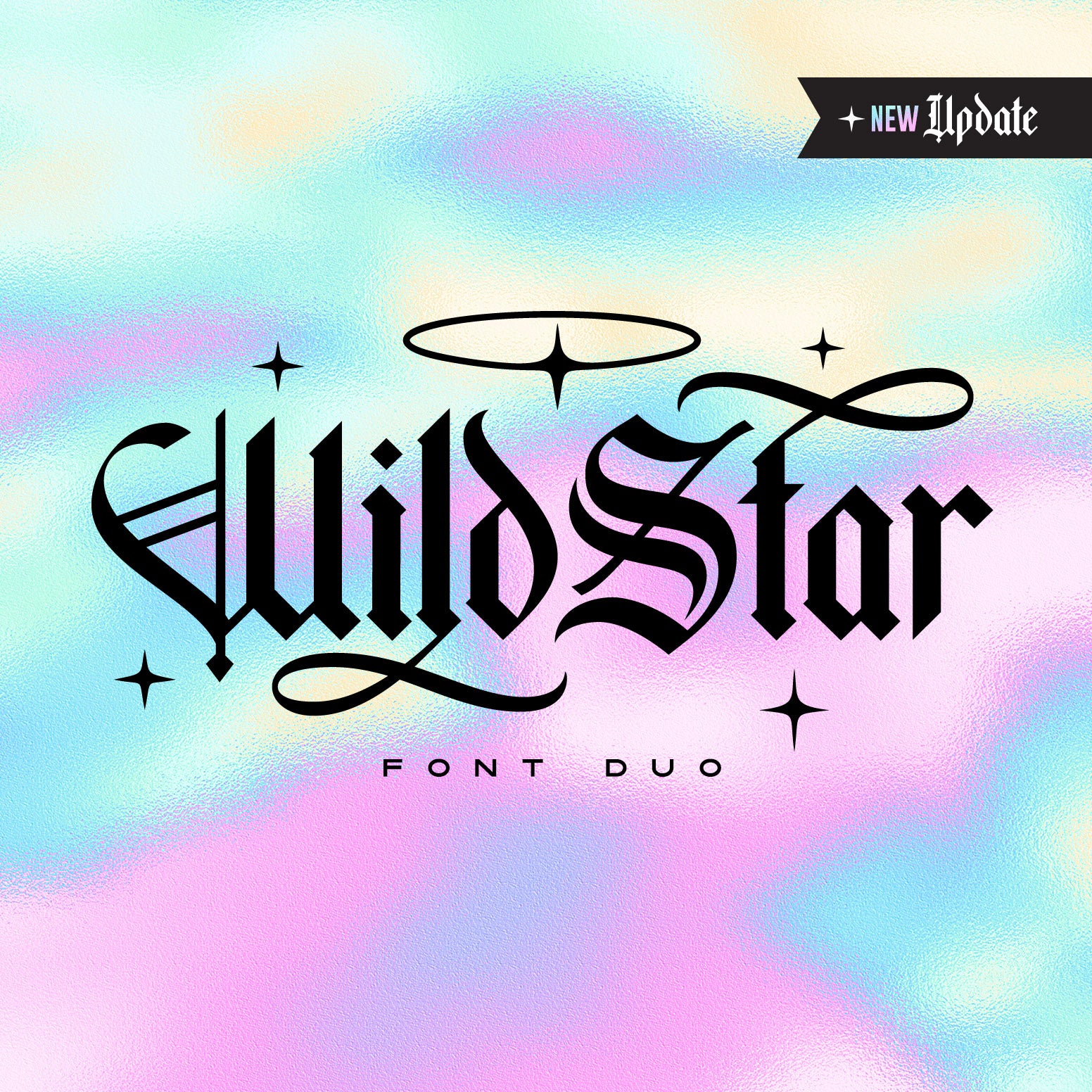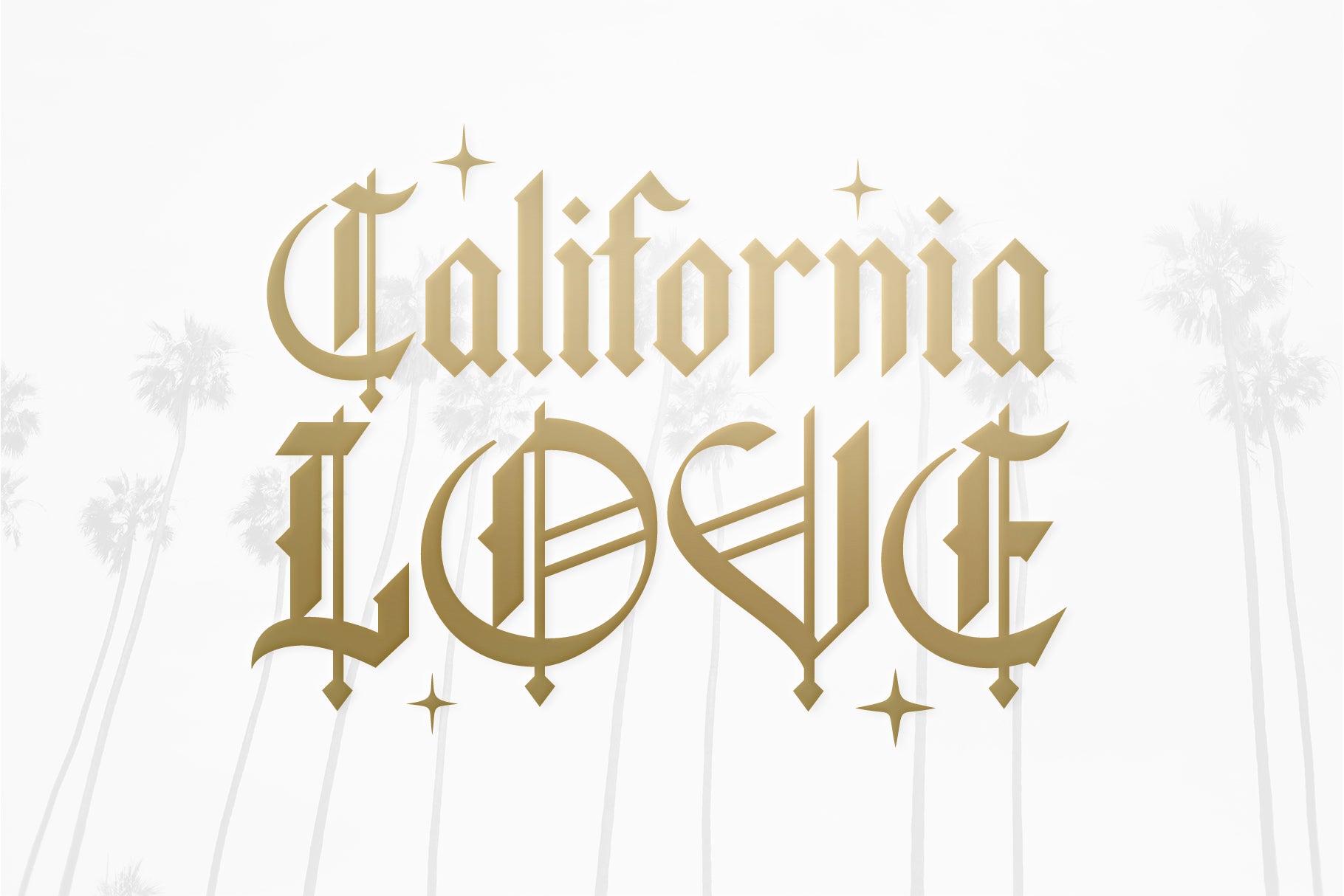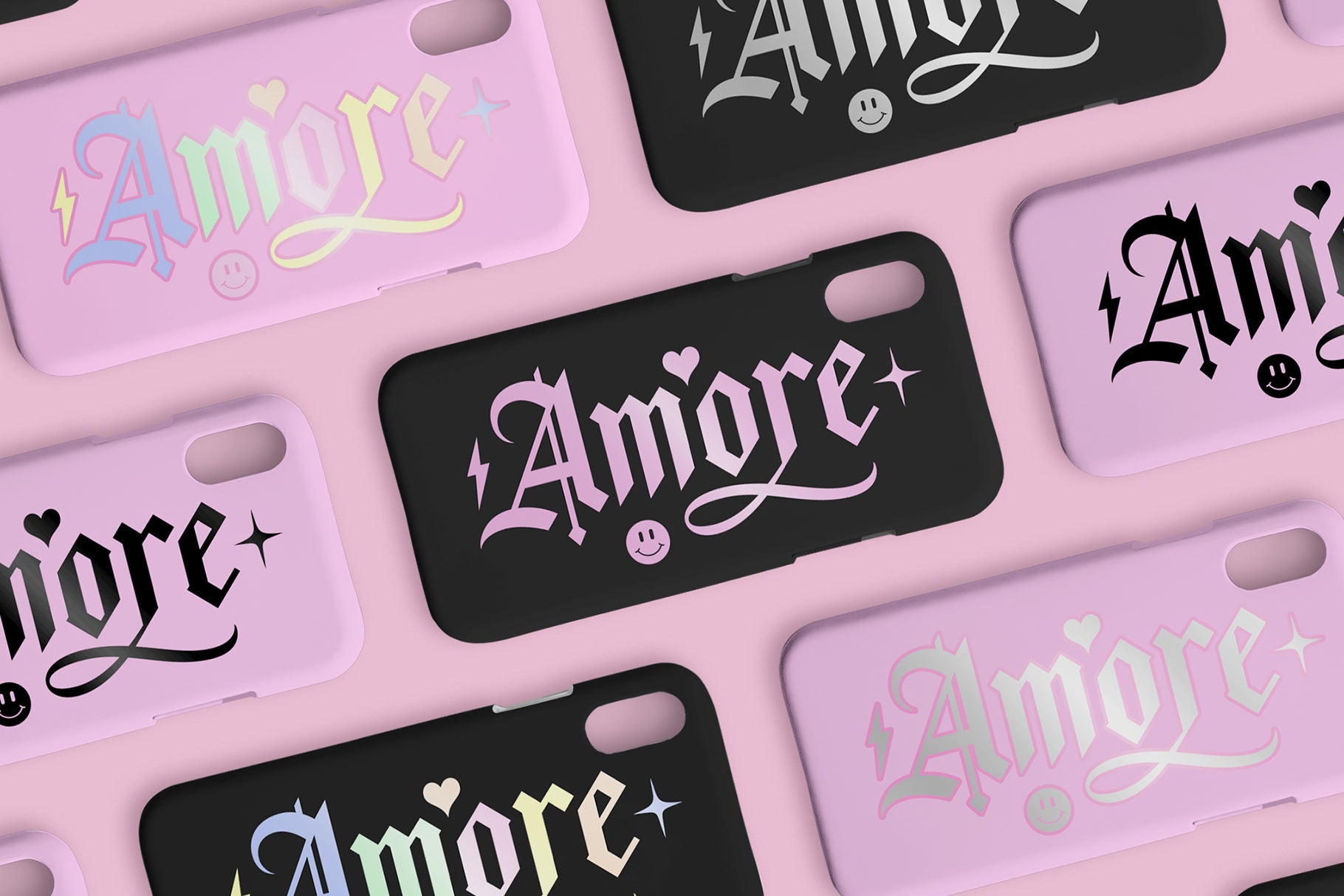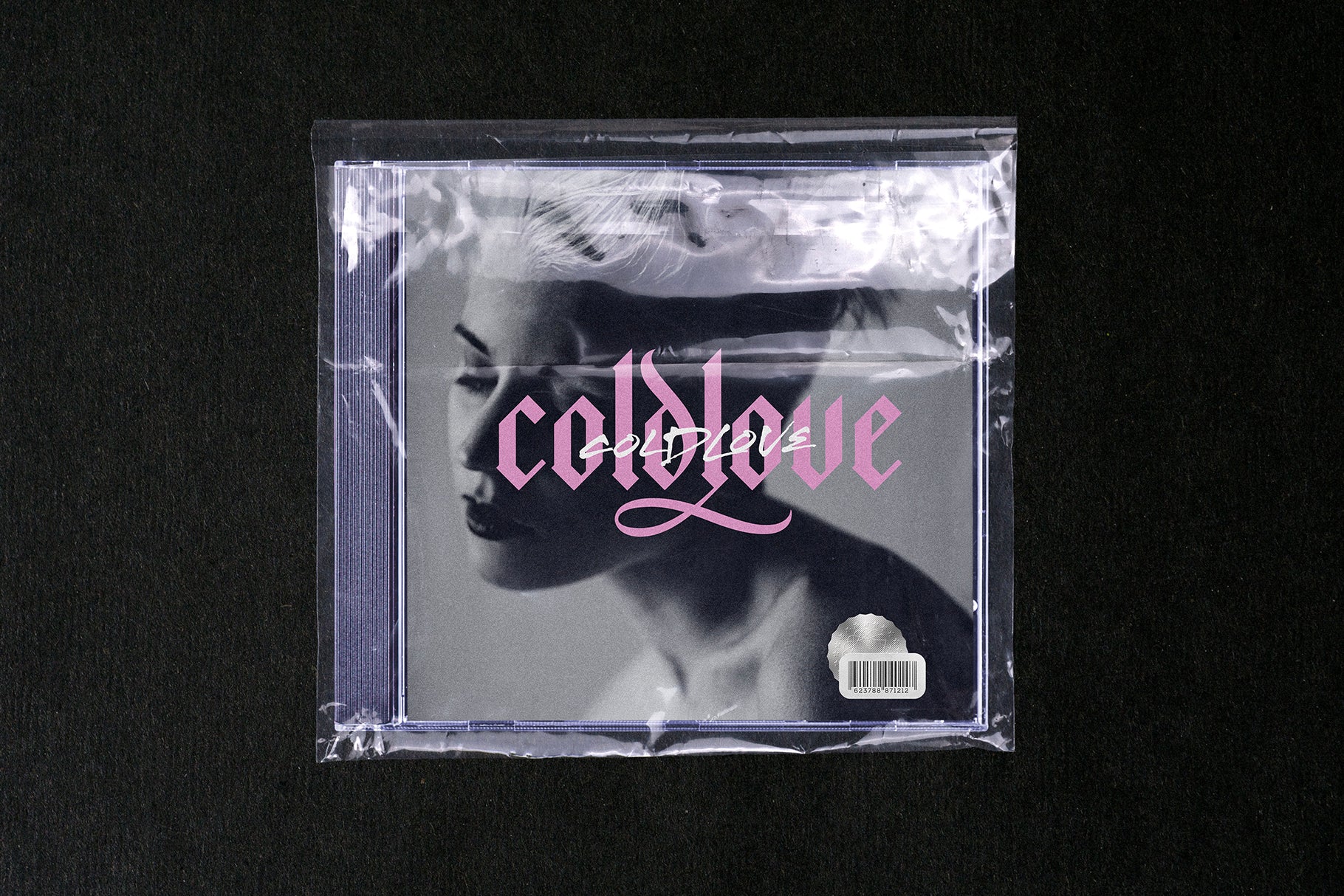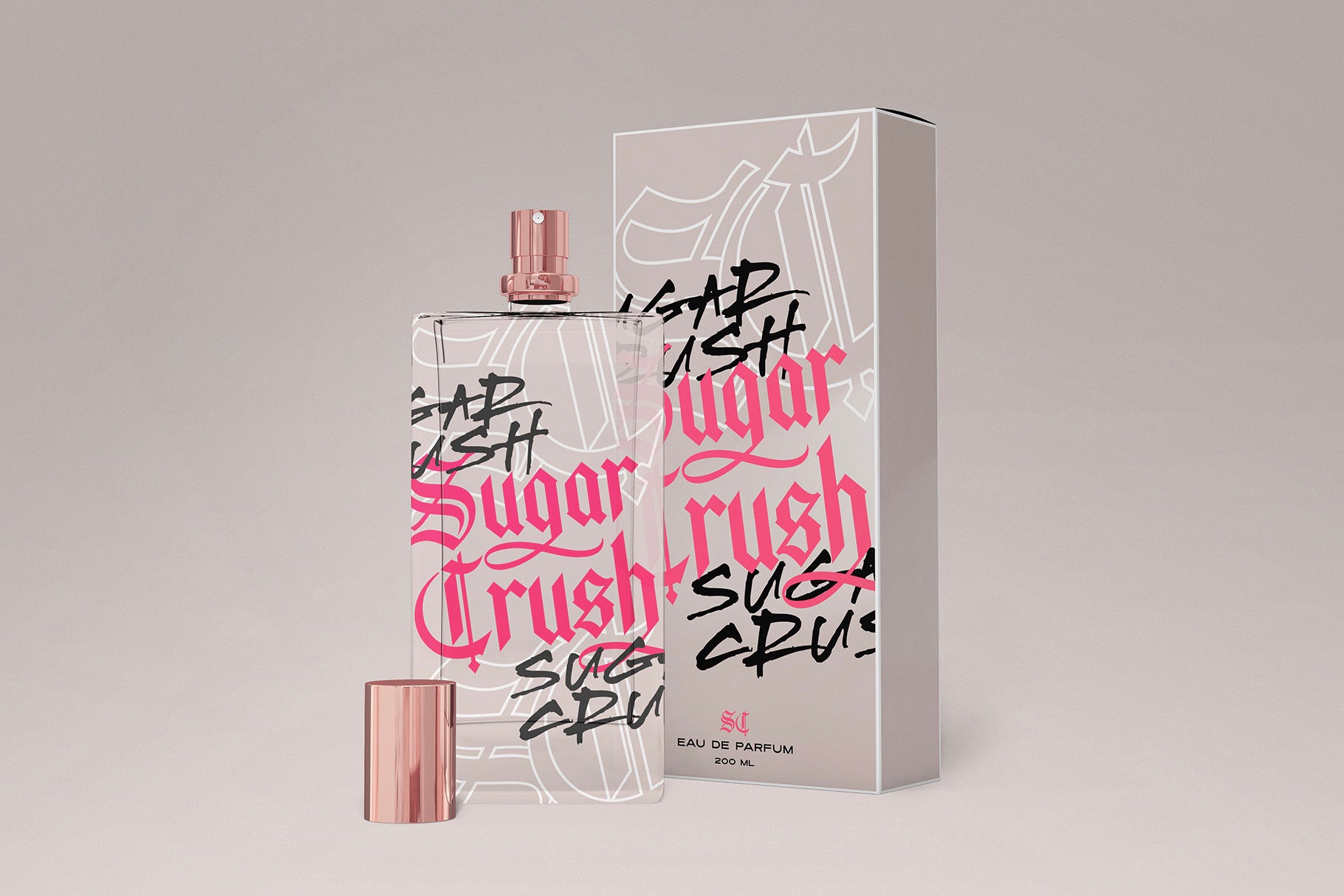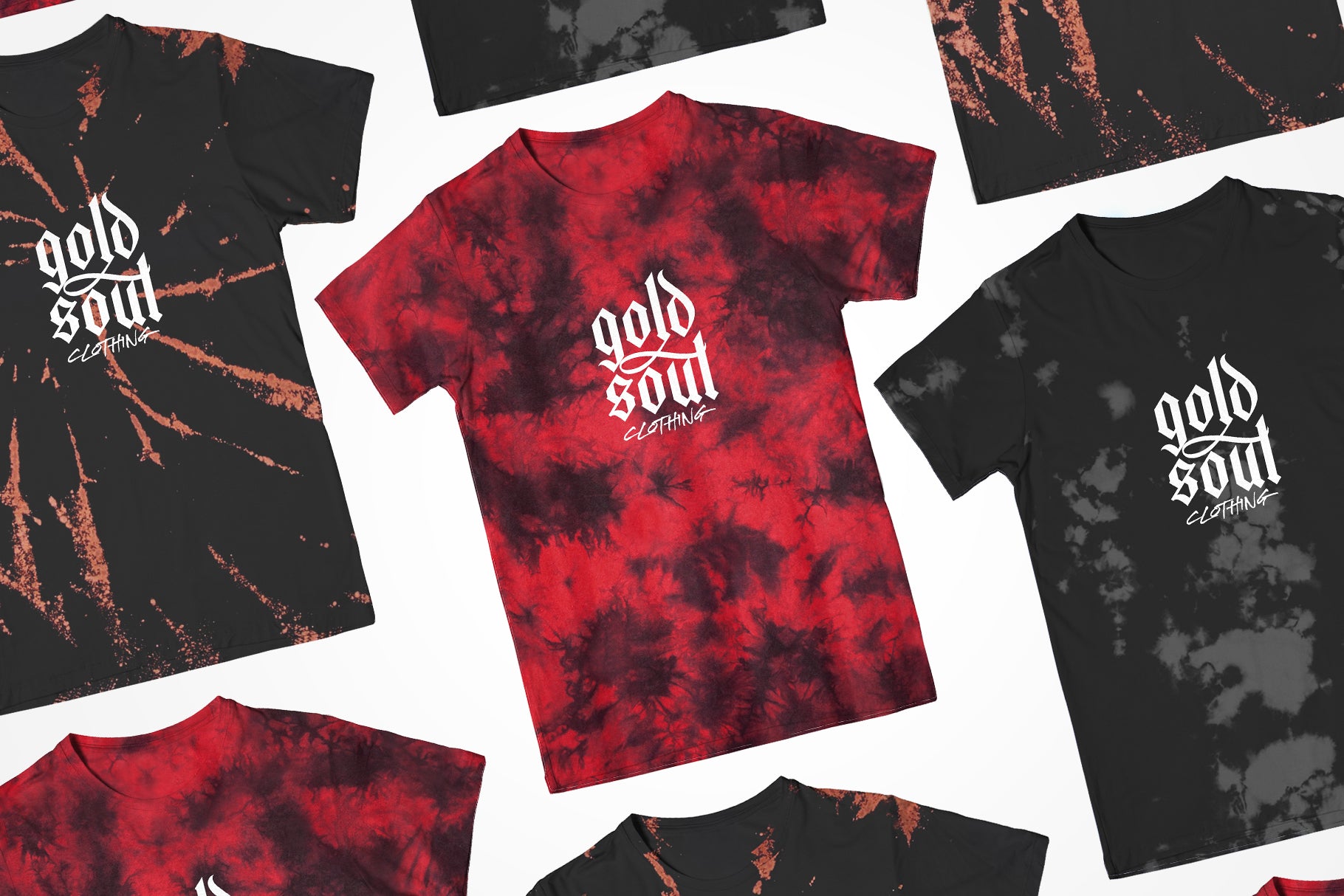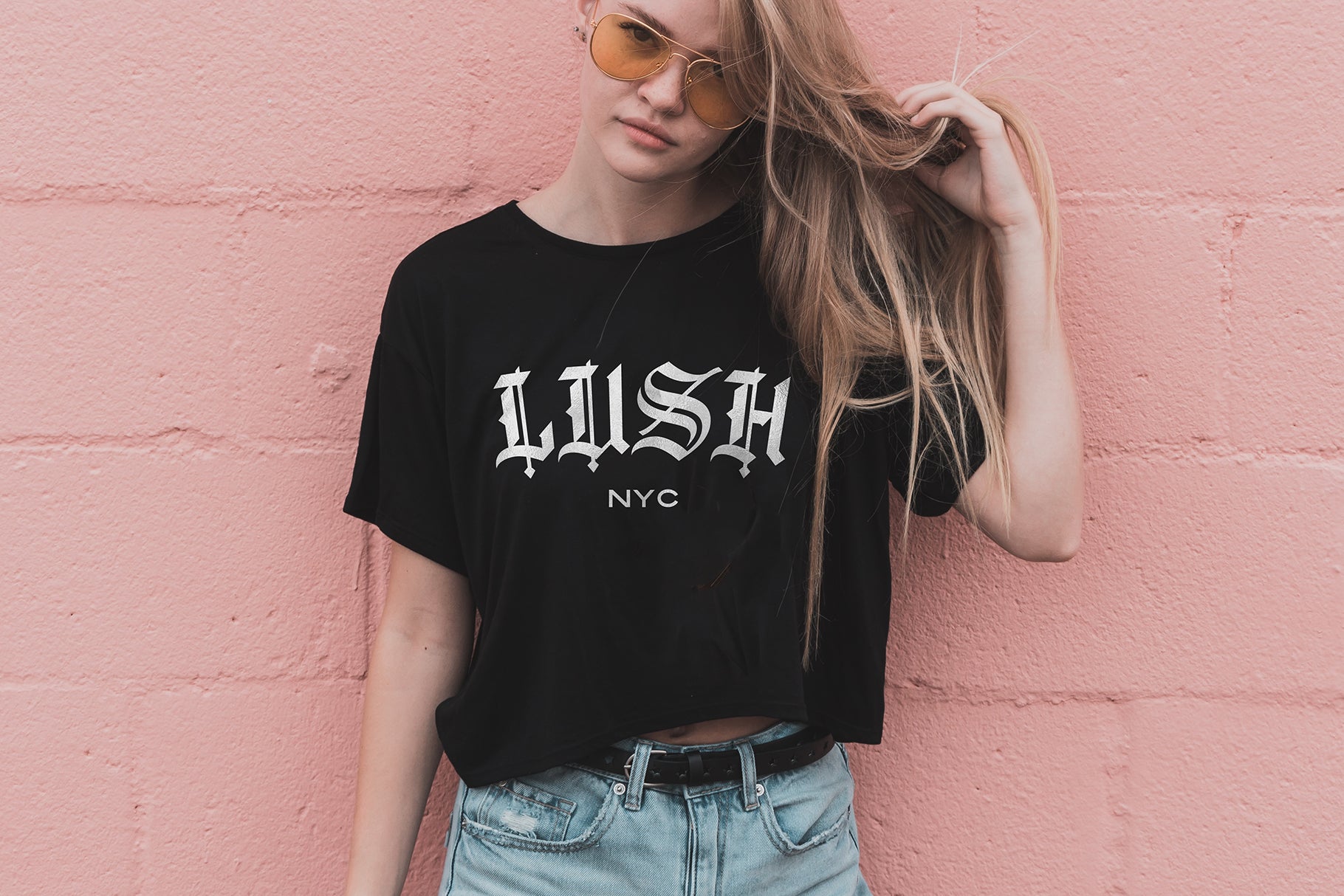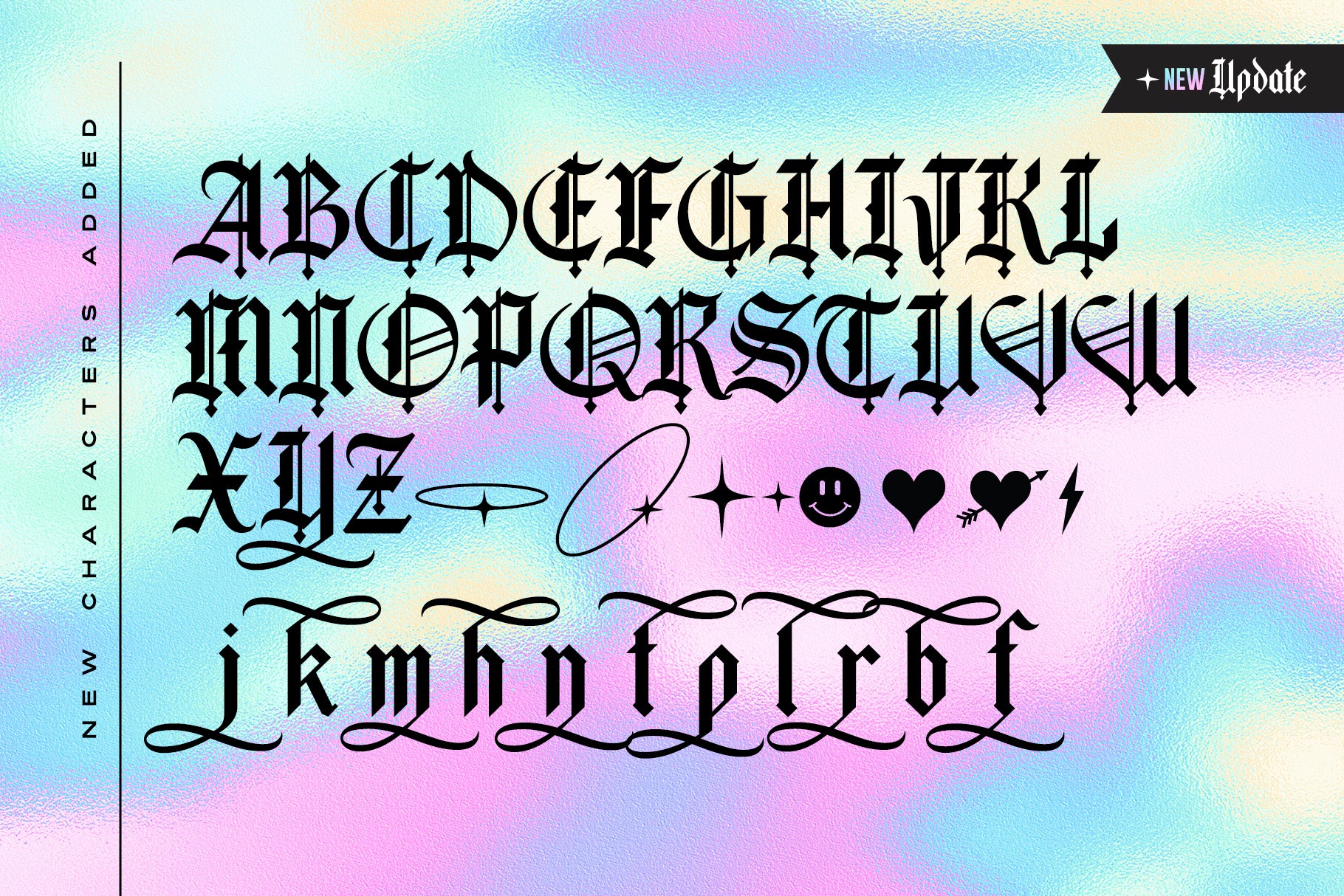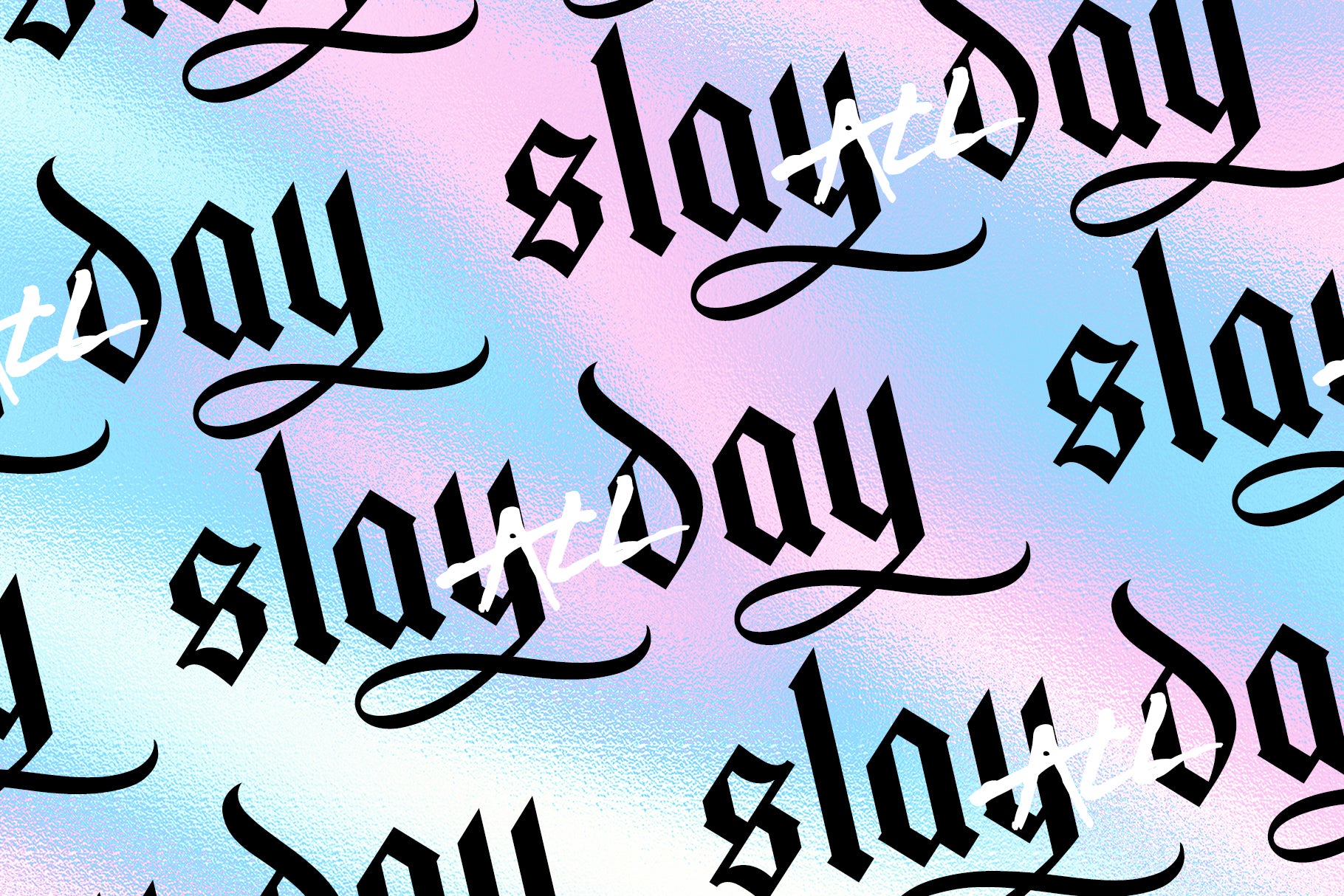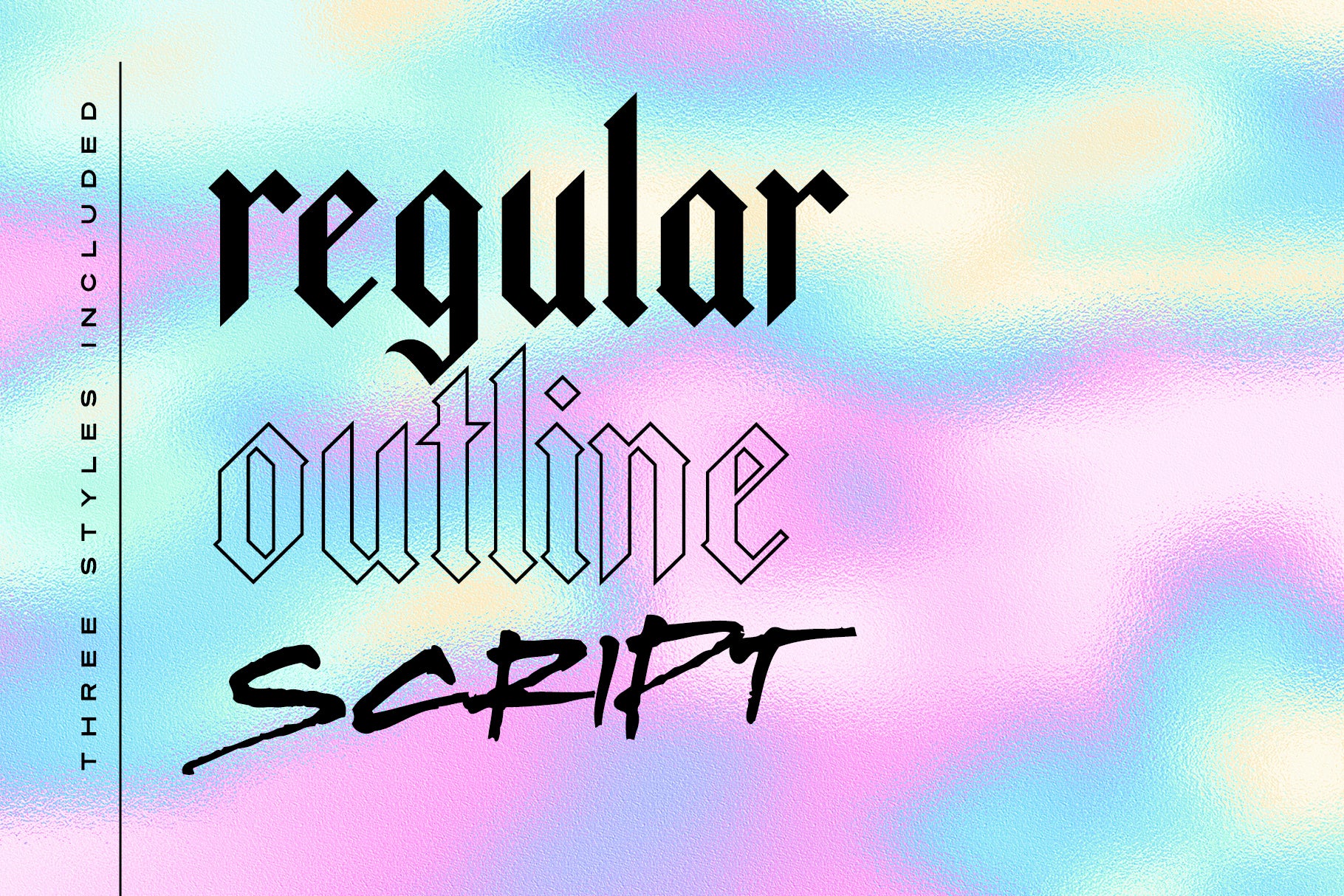
Wild Star Font Duo
The Wild Star Font Duo includes three font files in TTF and OTF formats: a modern blackletter font with uppercase and lowercase characters, numerals, and 17 alternate stylistic versions; a Wild Star Outline version with an added outline effect; and a rough, hand-scratched script font featuring two sets of uppercase characters and numerals. The update adds uppercase characters, 11 new flourished lowercase characters, and 8 fun icons, totaling 45 new glyphs, with support for multiple languages.